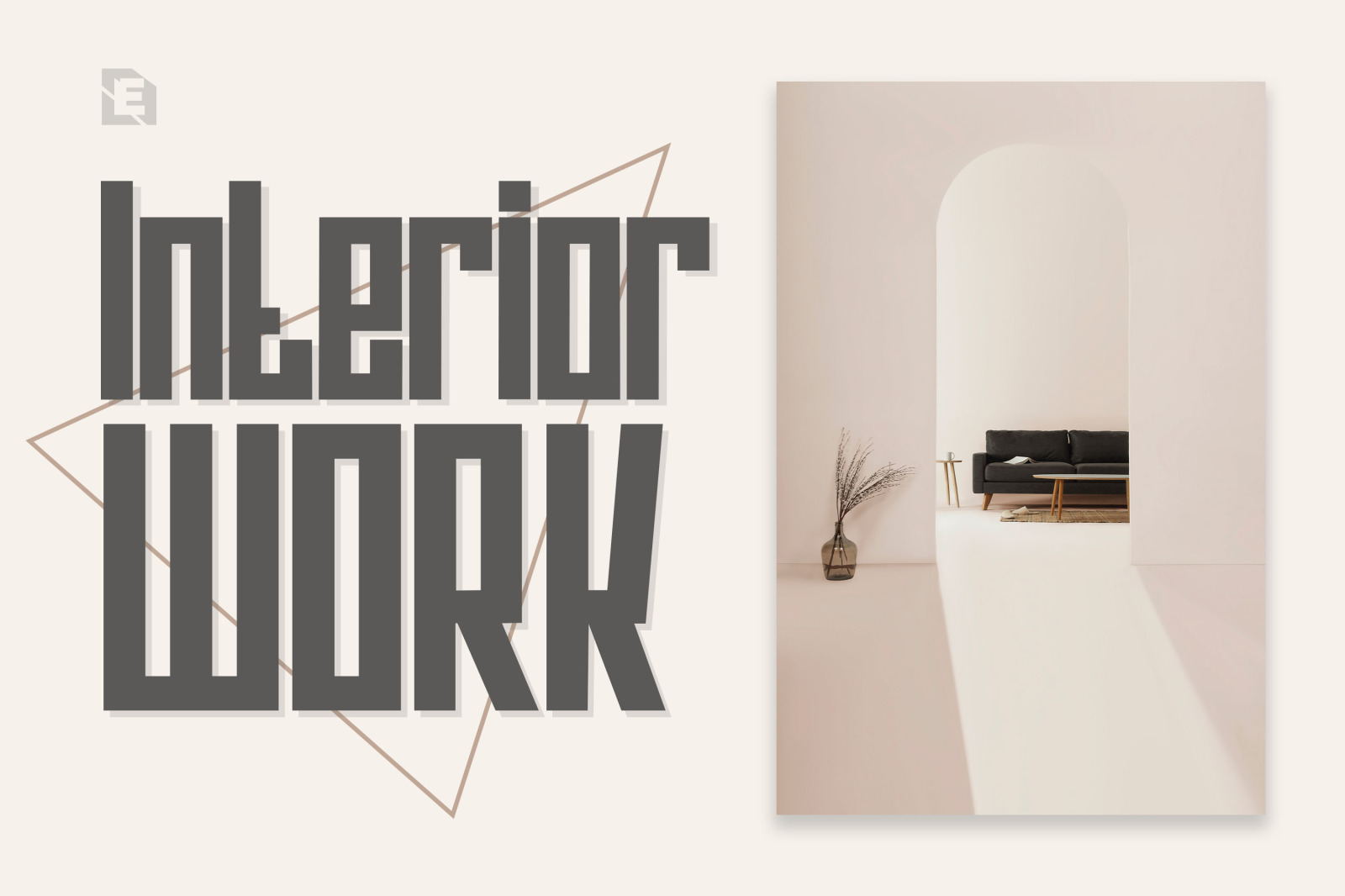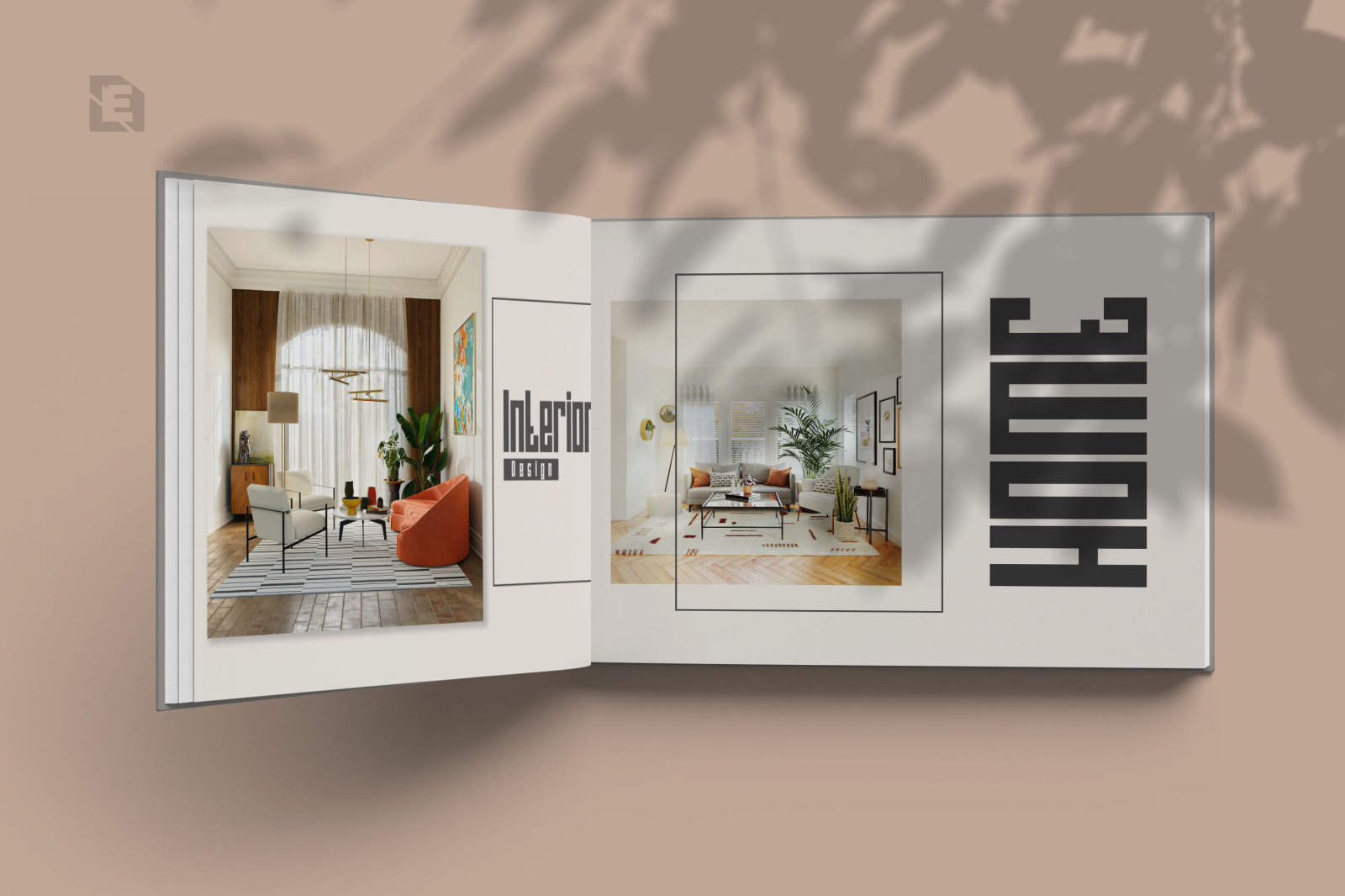
Oxide Font
Oxide is a cool, assertive and Bold lettered display font. It will look stunning on any poster, flyer or print. Use this font for your designs and explore its endless possibilities.